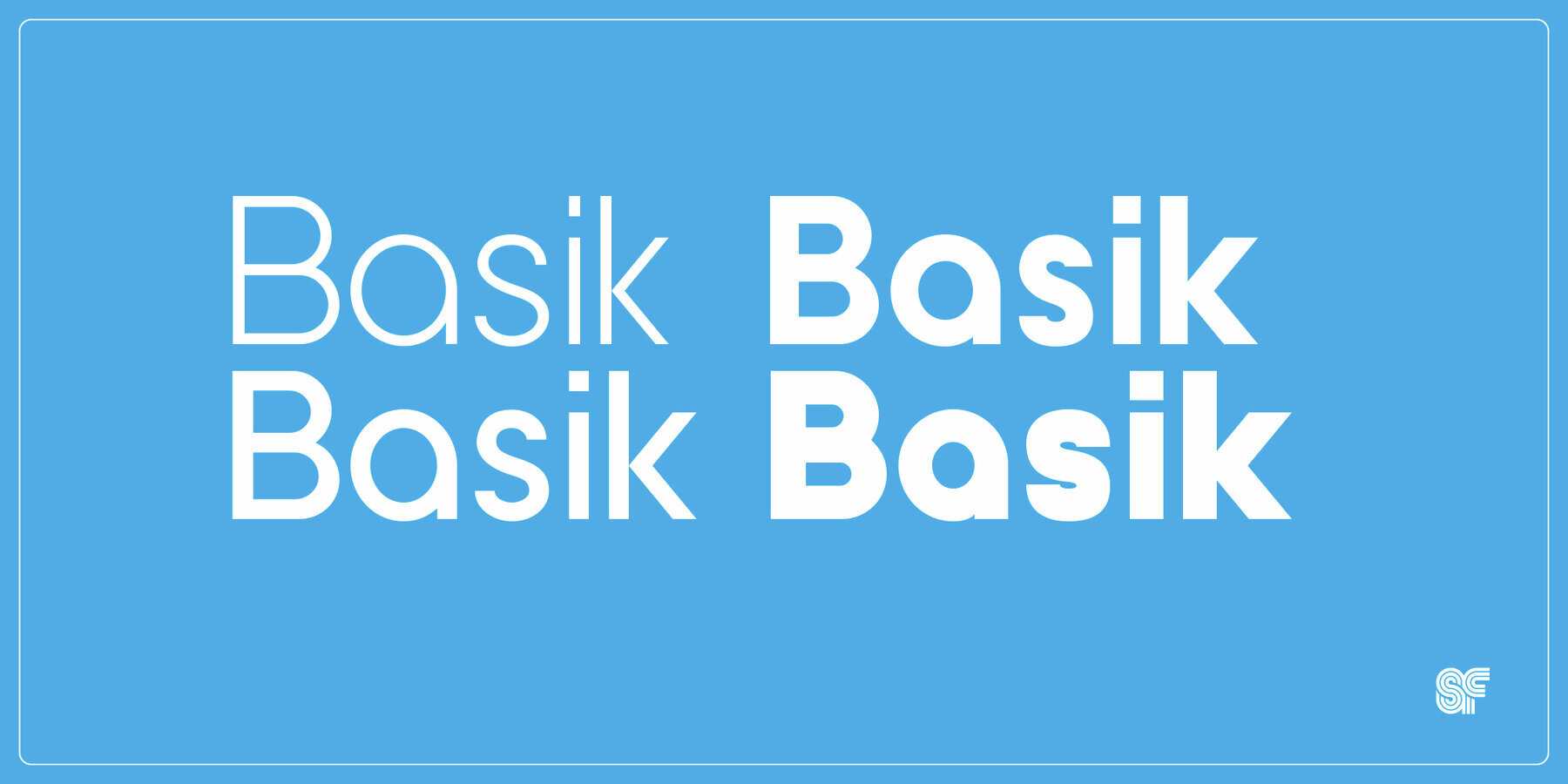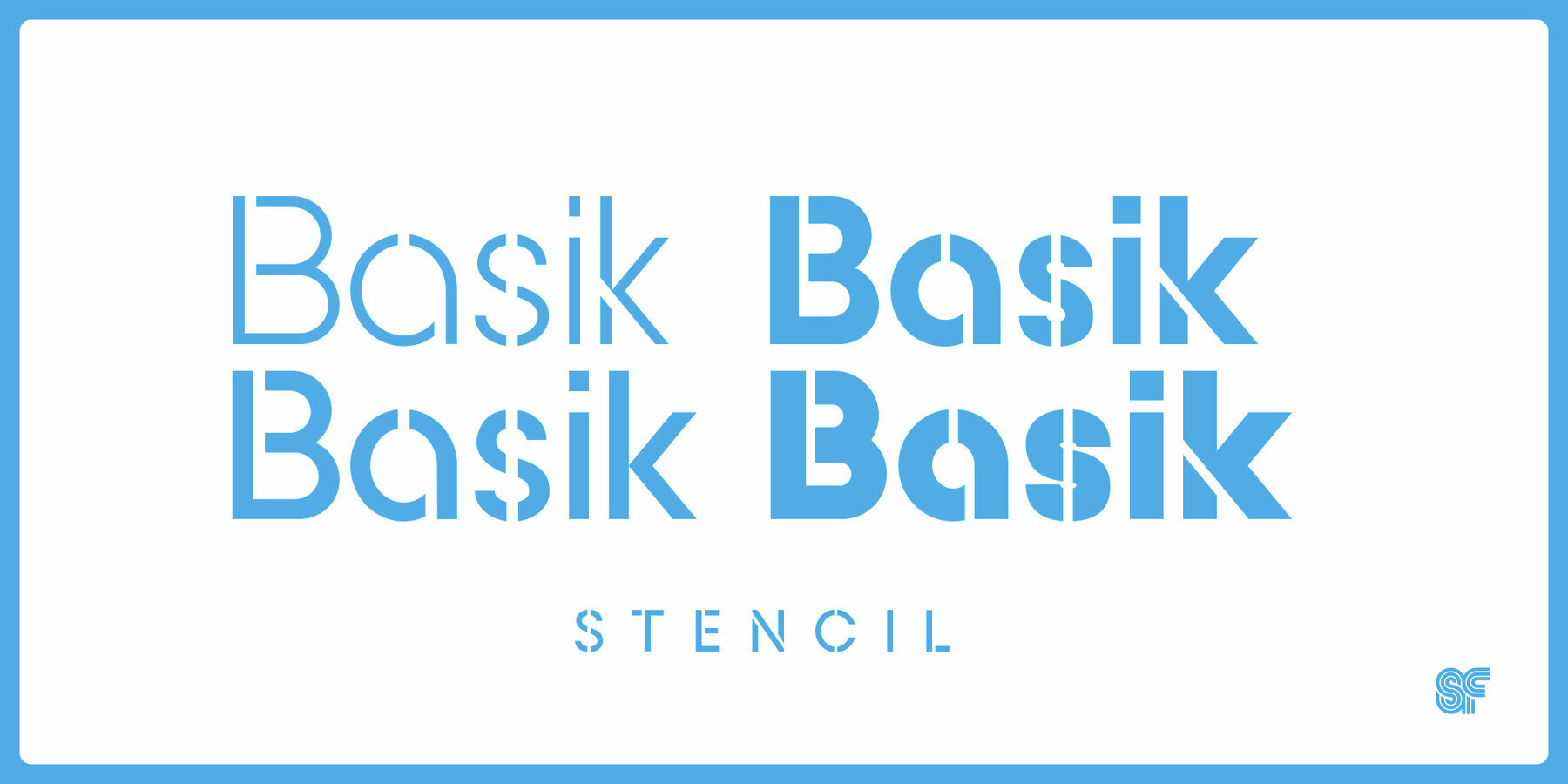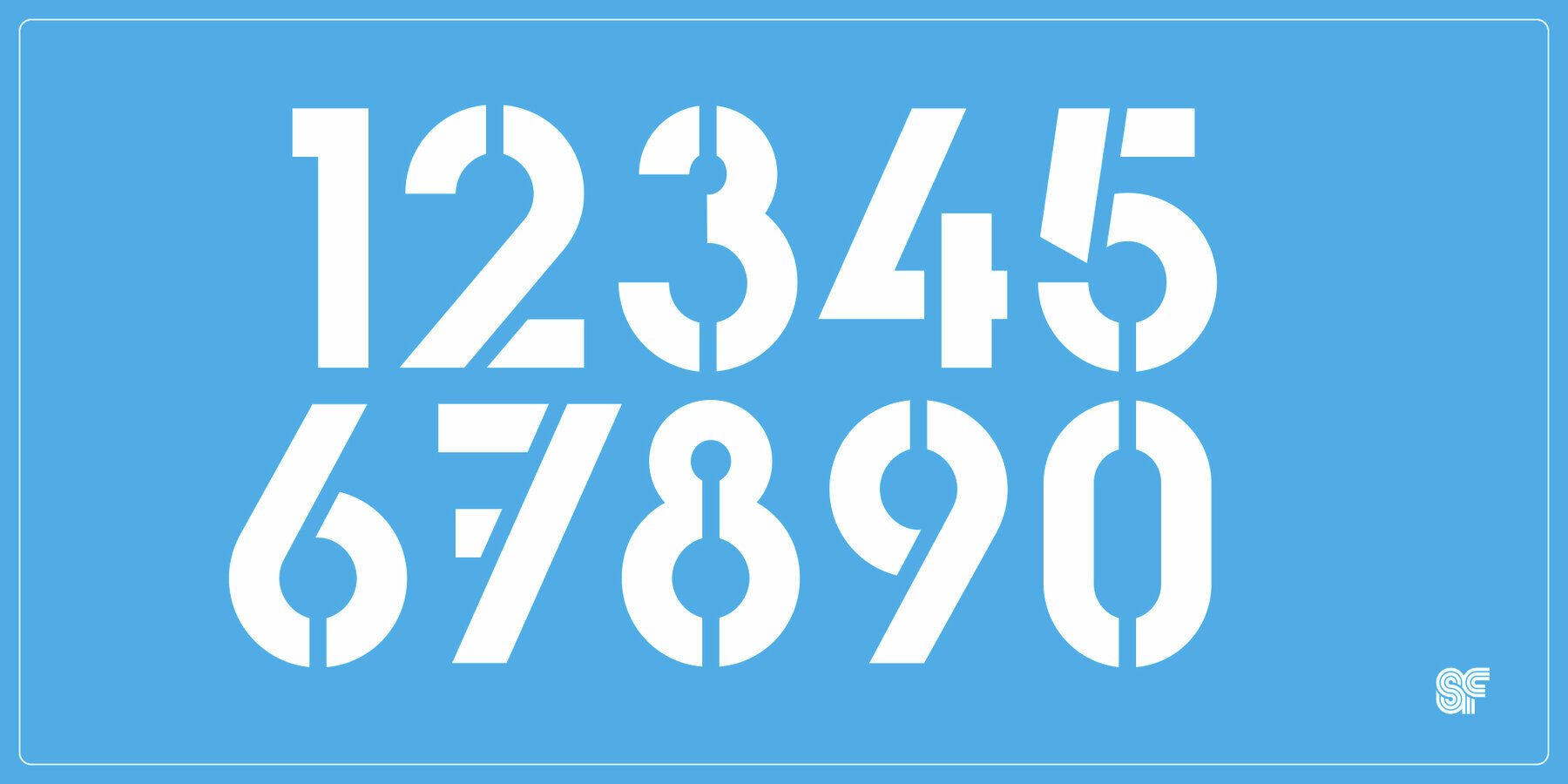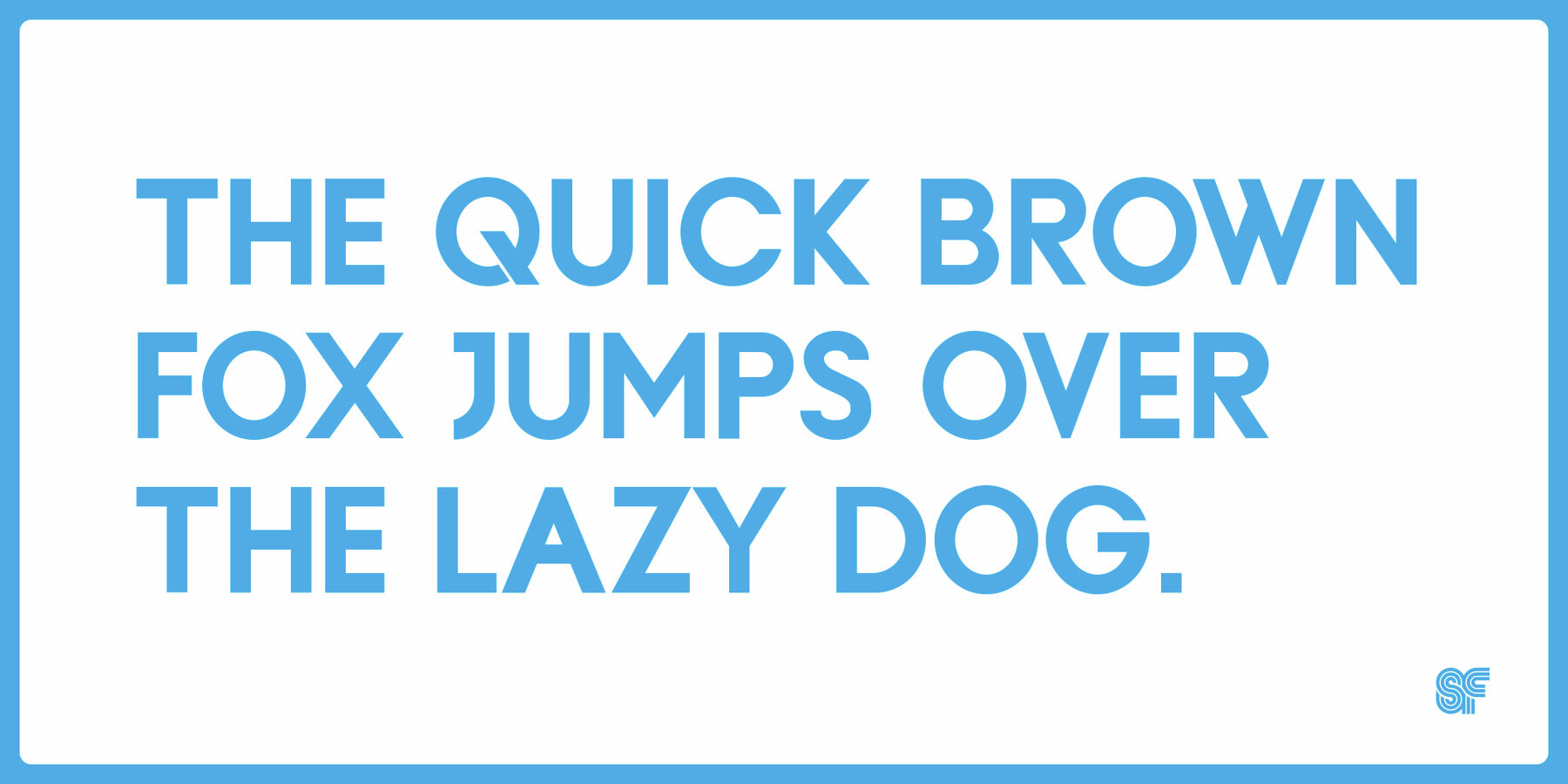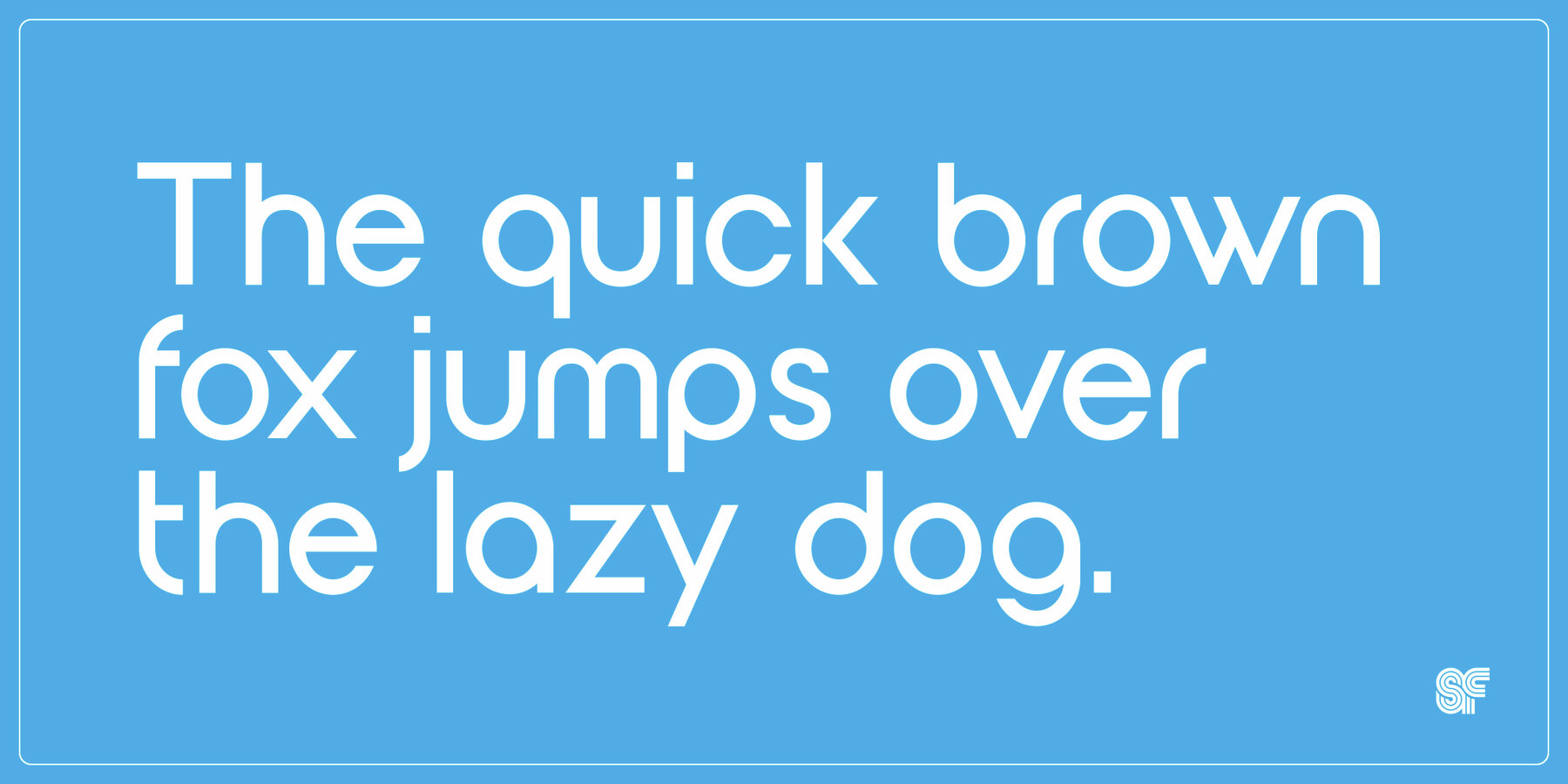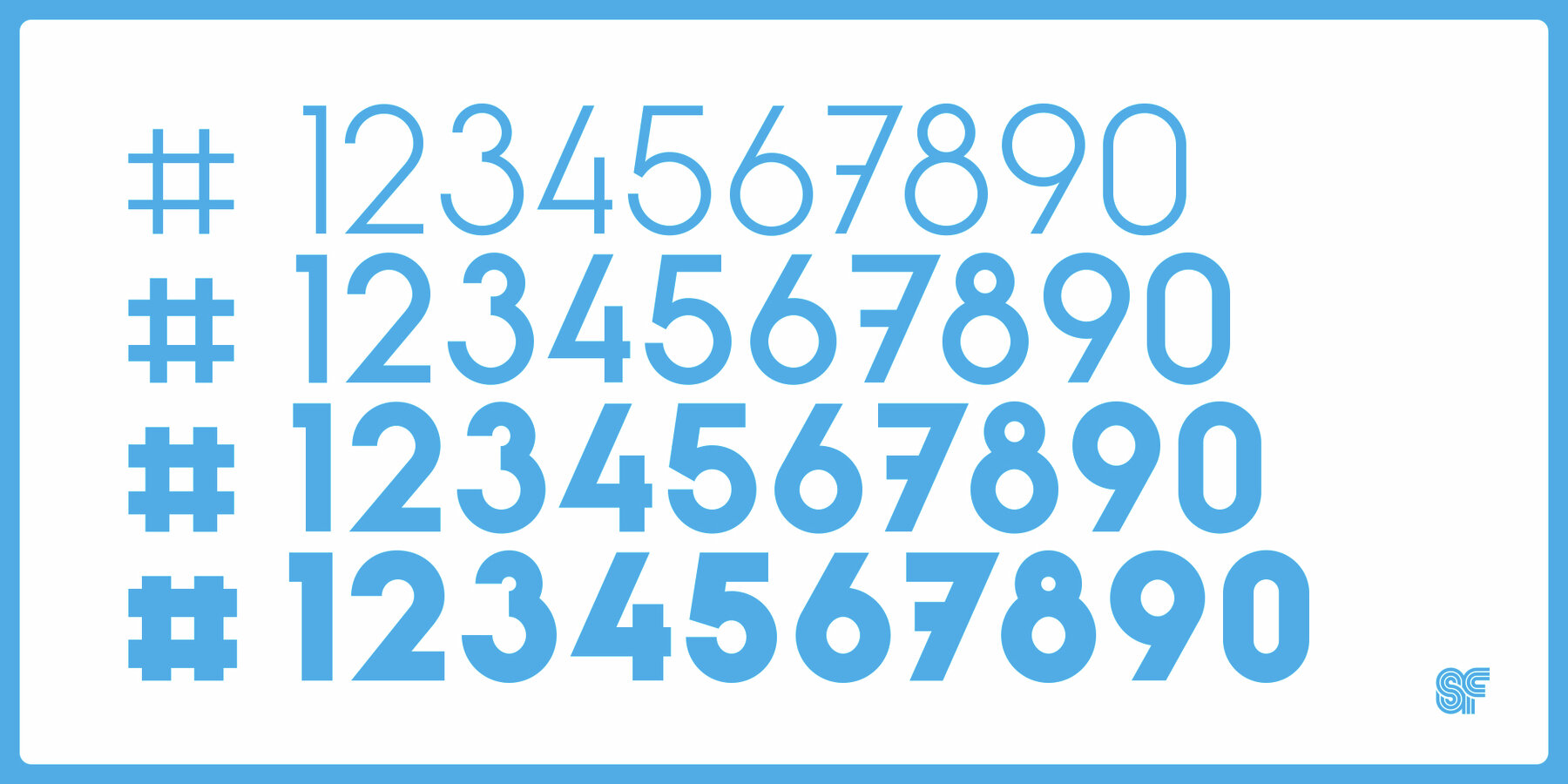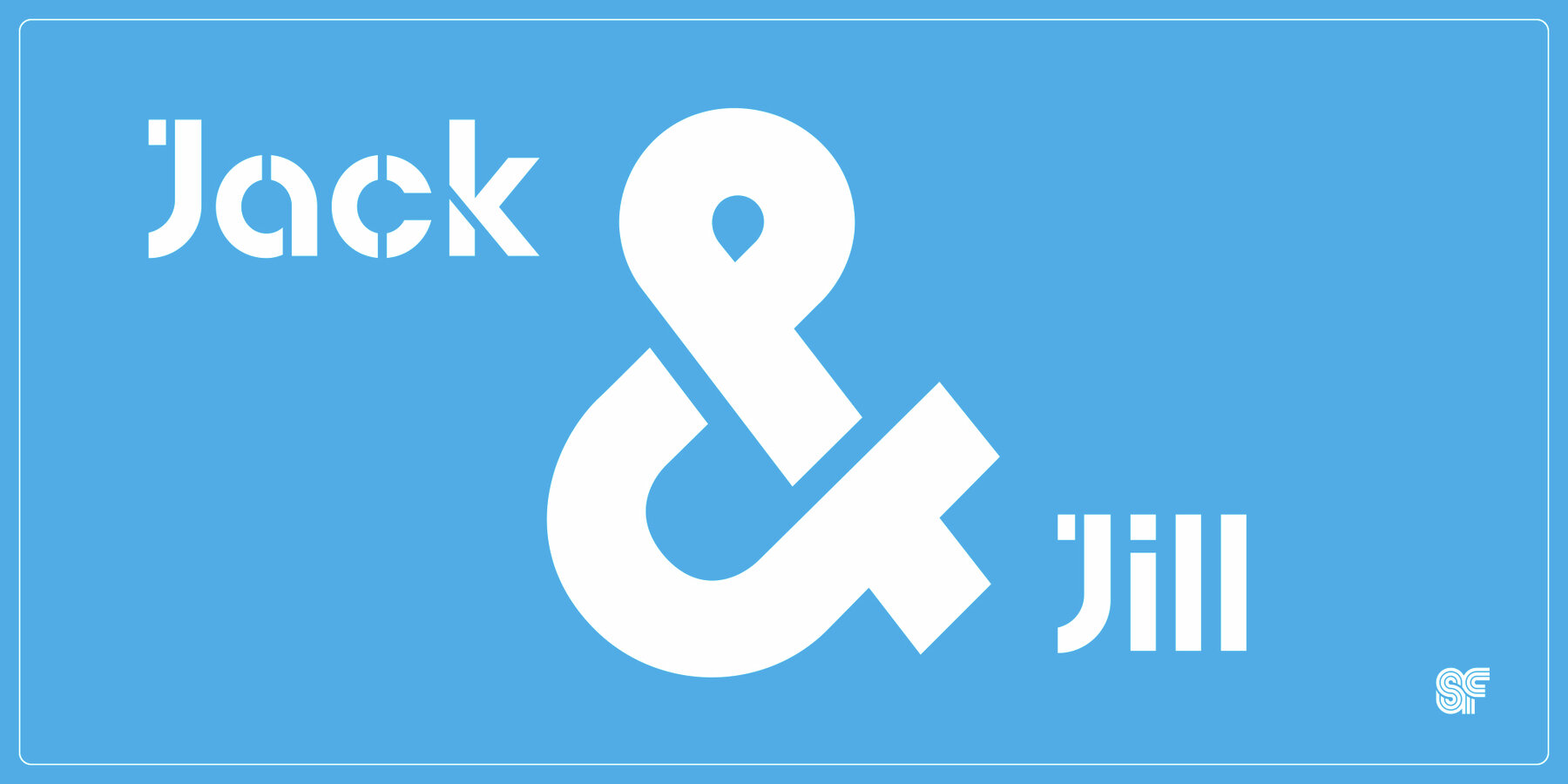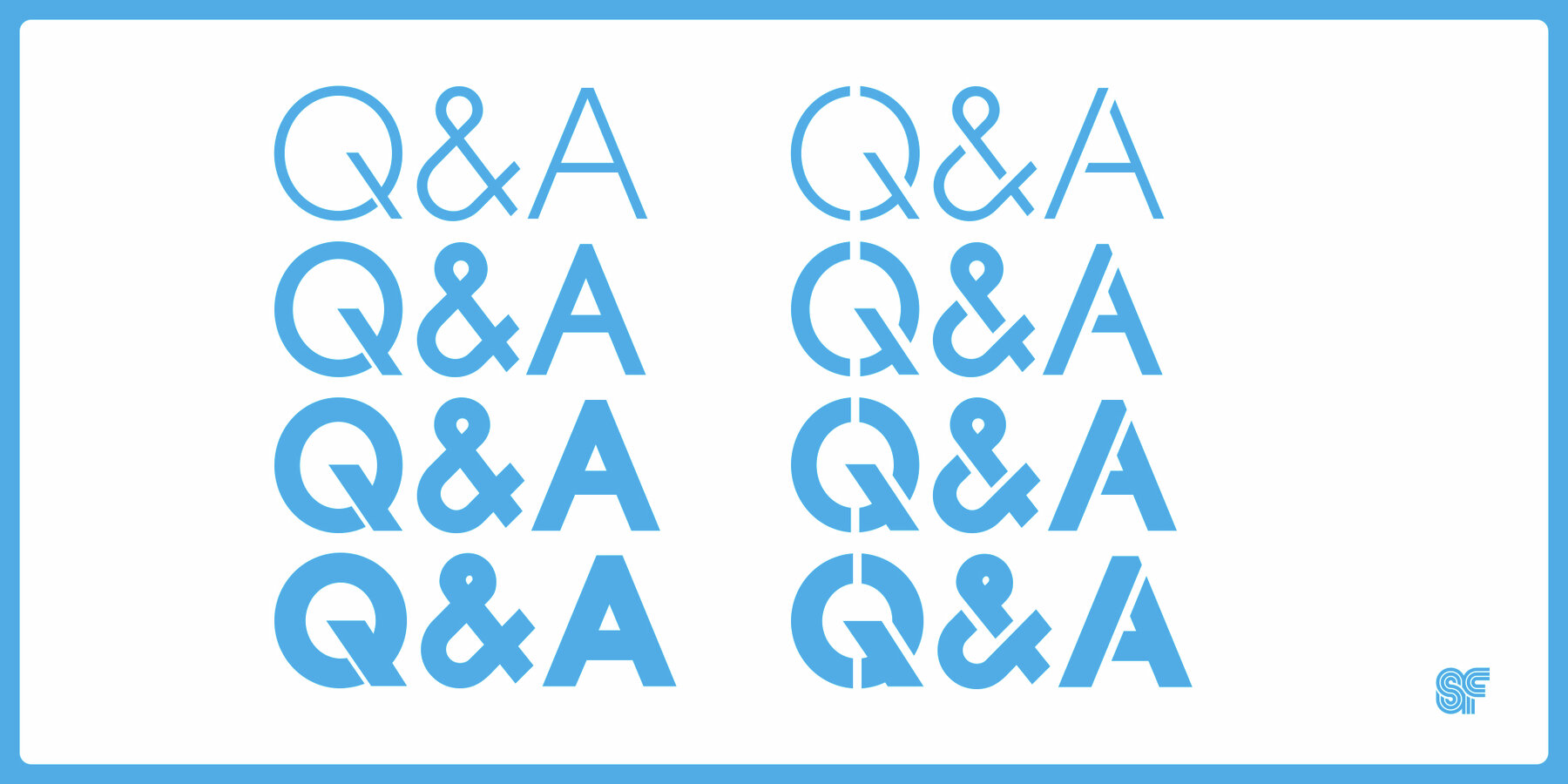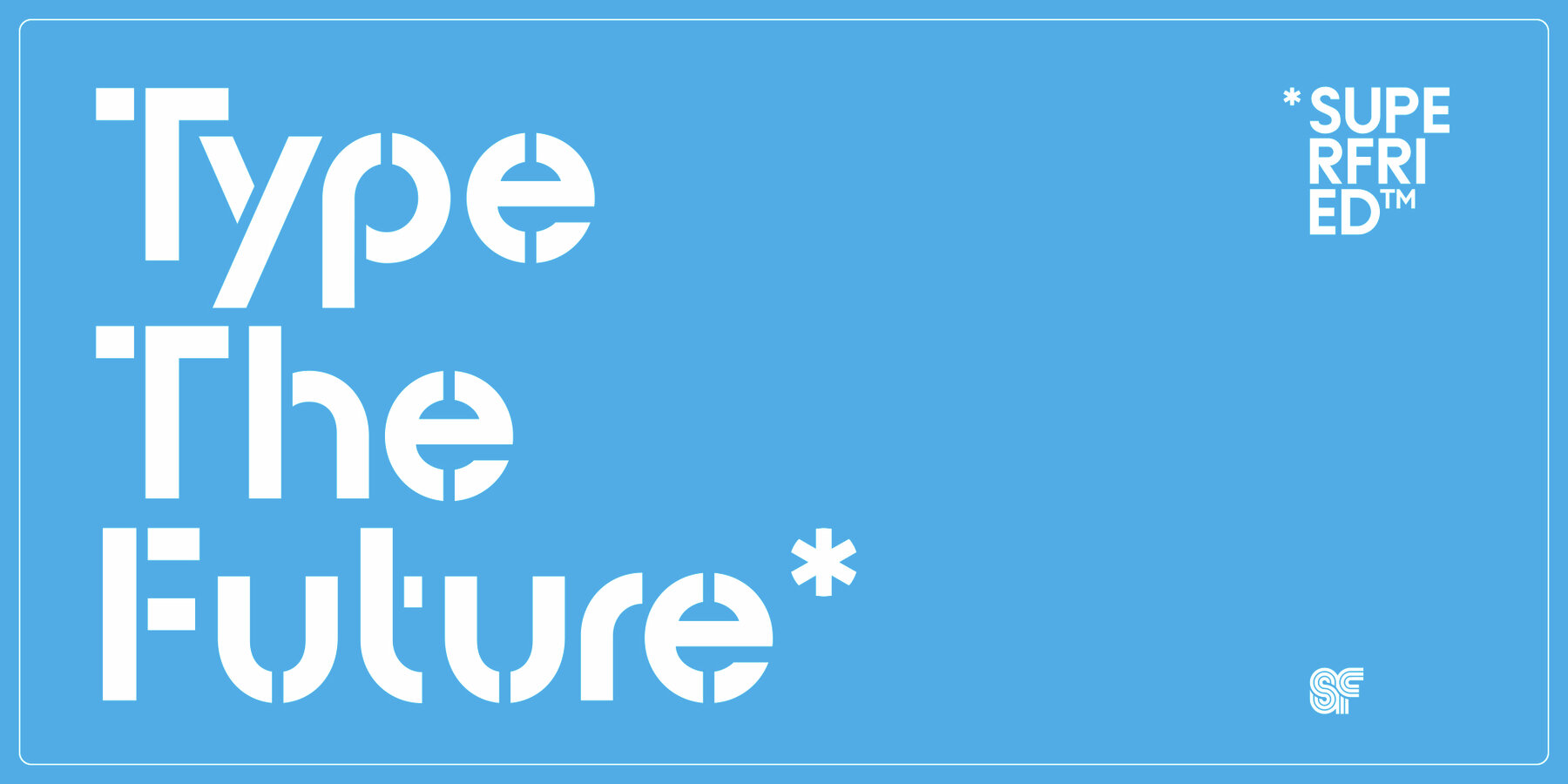
Basik Font
NEW - Remastered for 2025! As the name suggests, Basik is a simple, clean, and versatile sans-serif typeface designed by Superfried. Originally designed in 2011, Basik has been remastered, and now features 4 weights & stencil - 8 fonts in total. With so many sans typefaces available, the challenge was to develop a different look and feel. This was achieved by making the letterforms spurless - stems flowing straight into the shoulders. This resulted in a friendlier, slightly retro feel. Basik is equally suitable for body or display text. Available in four weights and stencil, it has also been featured on Behance.